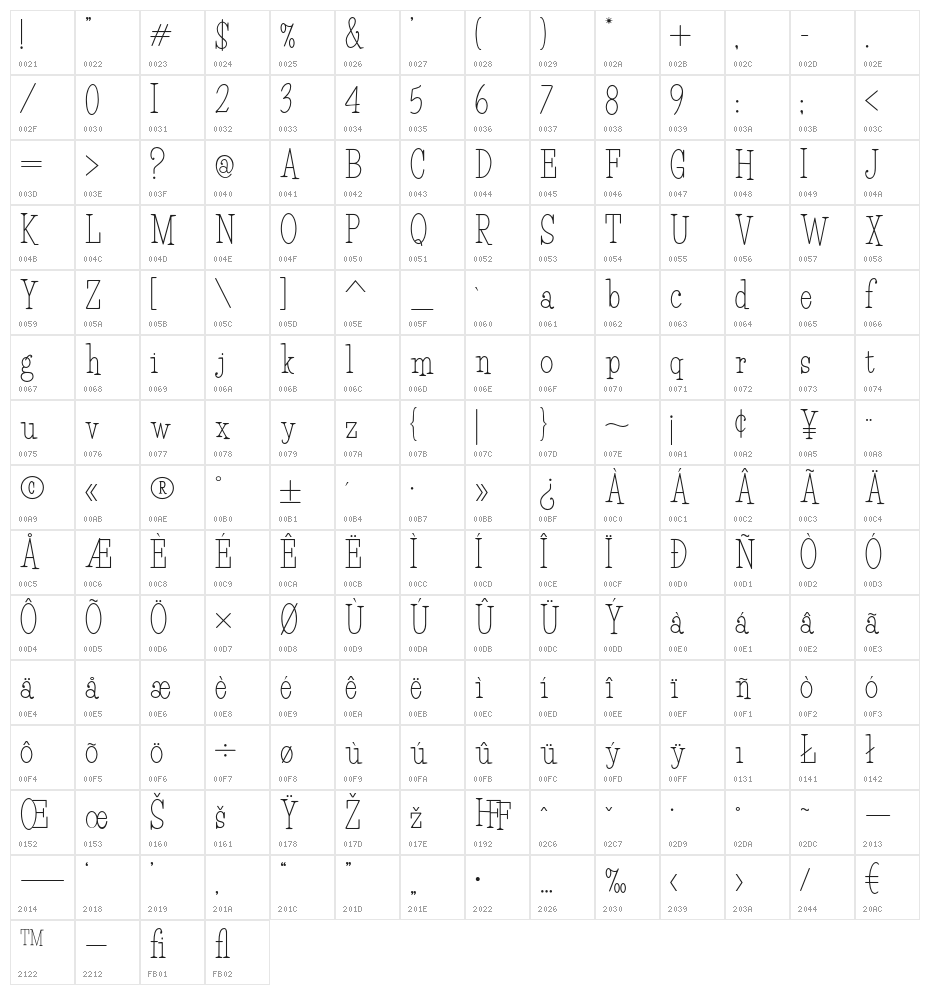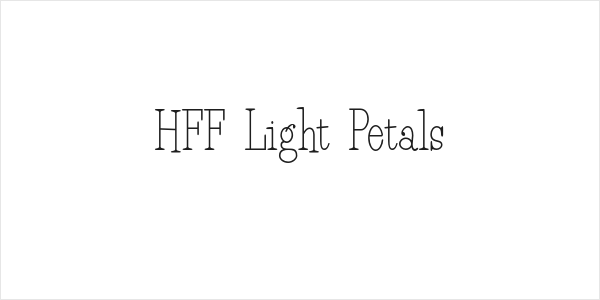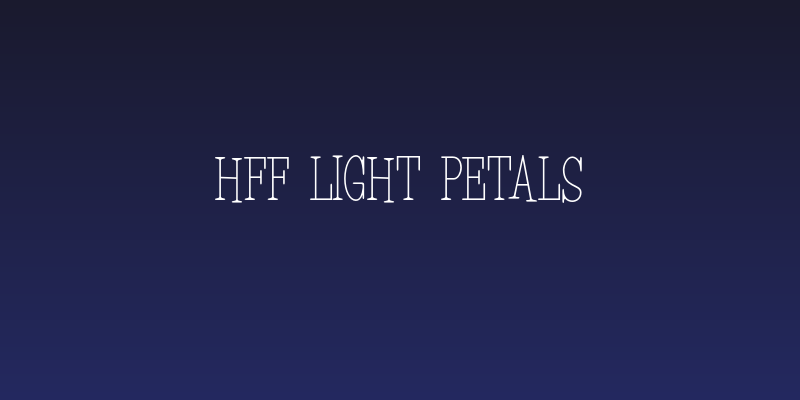
HFF Light Petals Font
HFF Light Petals Description
This font features a delicate and elegant design with thin, elongated strokes that give it a light and airy appearance. The characters are slightly condensed, enhancing the verticality of the letters. The serifs are subtle yet distinct, adding a touch of sophistication. The lowercase letters maintain a consistent height, while the uppercase letters are tall and commanding. The numerals are clear and easy to read, with a uniform style that complements the alphabet. Special characters are well-integrated, maintaining the overall aesthetic. This font is ideal for projects that require a refined and graceful touch.
| Use Case | Headlines, Invitations, Branding |
| Proposed Projects | Ideal for wedding invitations, elegant branding, fashion magazines, and luxury product packaging. |